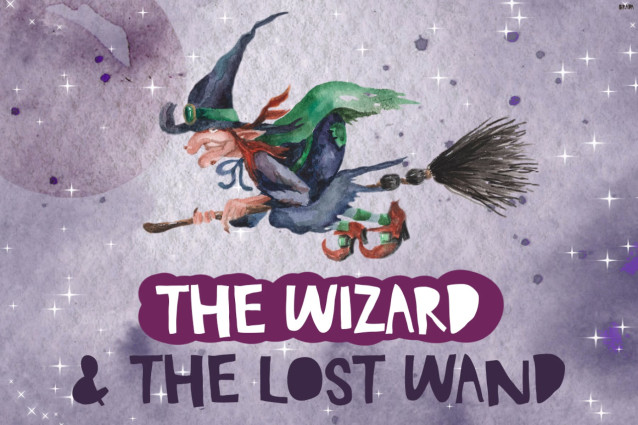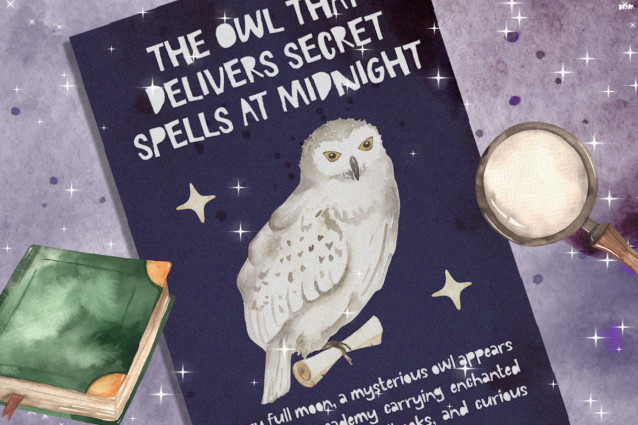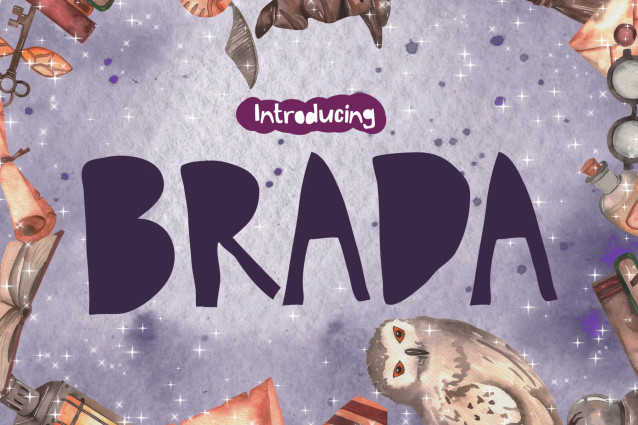
Instagram Font Brada is a magical display font designed to bring wonder, imagination, and storytelling charm to every project. Not only does it feature playful handcrafted letterforms, but it also captures the enchanting atmosphere of fantasy worlds, wizard tales, and magical adventures. Moreover, its unique character shapes create a whimsical personality that instantly attracts attention.
In addition, the organic strokes and imaginative details add warmth and creativity to every design. Furthermore, Brada maintains excellent readability, making it ideal for both digital and print applications. As a result, your titles, book covers, posters, and social media graphics become more memorable and engaging. Meanwhile, its fantasy-inspired aesthetic helps create an immersive visual experience. Additionally, with support for 67 languages, Brada allows creators to share magical stories with audiences around the world. Therefore, it is a perfect choice for international creative projects.